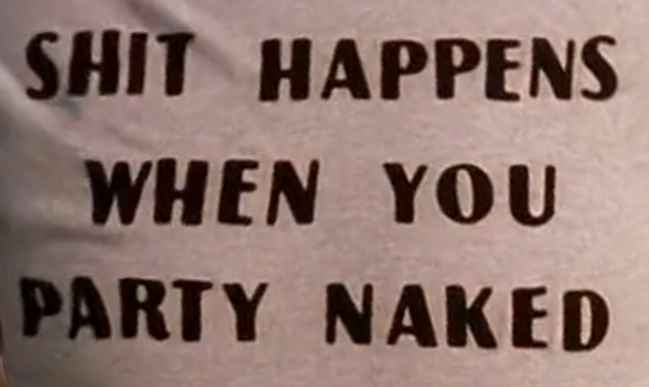
No-one on the web has a decent reproduction of this shirt, so I’d like to make my own. To do that, I’d like to know what font this is. I’ve posted this to several places, but have had no luck identifying it. Could you help me out? Thanks!
Hi Joe! You’re right that Artigua has a similar weight and contrast. You’re also right that it’s not the same font - the capital R is the most striking difference, and Artigua was designed this year whereas Bad Santa was released in 2003.
I wonder how to describe the style of that capital R, with that calligraphic tail - is there a name for it?